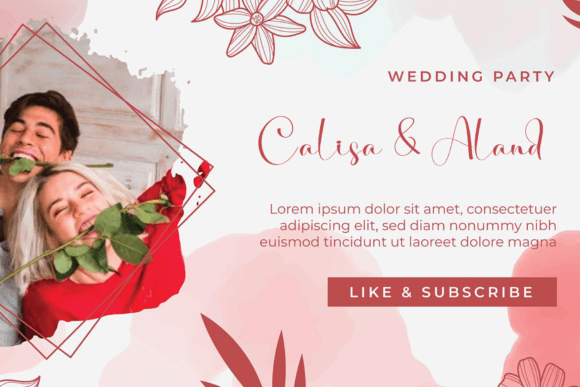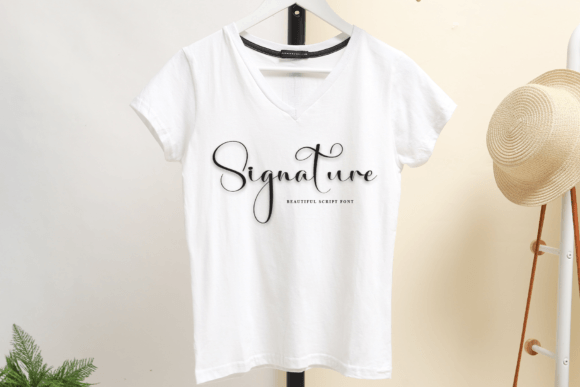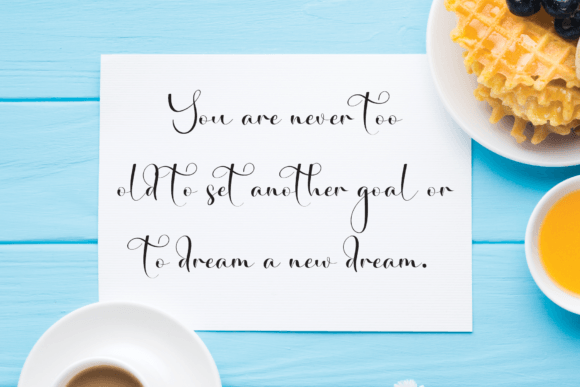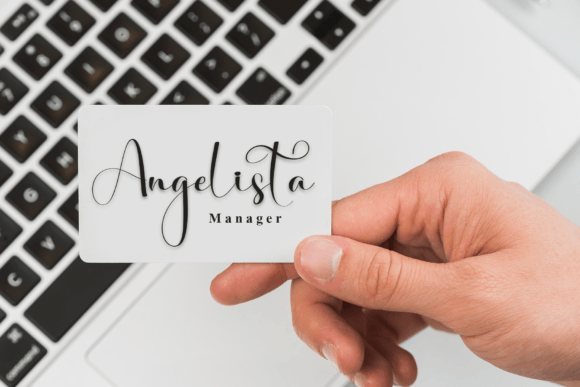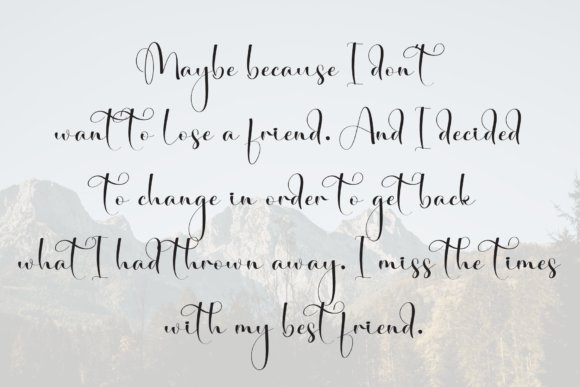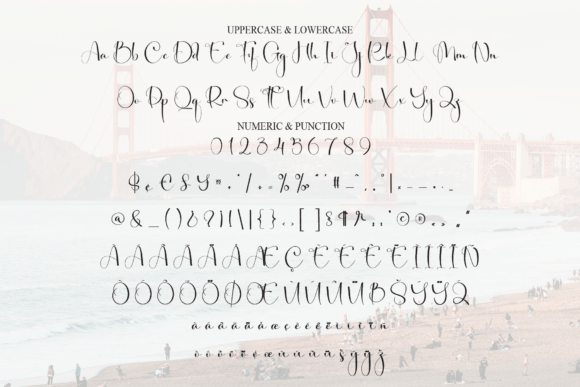
Introducing California Font: The Perfect Blend of Casual and Charming
Are you tired of using fonts that are too formal or rigid? Do you want to add a touch of warmth and authenticity to your designs? Look no further than California Font, a casual handwritten font that captures the essence of a relaxed and friendly vibe. With its natural, flowing strokes, California Font is ideal for personal projects, social media, and invitations, bringing an effortless, charming touch to any design.
The Characteristics of California Font
California Font is a unique and stylish font that boasts a range of characteristics that set it apart from other fonts. Its casual and handwritten style gives it a natural and effortless feel, making it perfect for designs that require a personal touch. The font’s flowing strokes and rounded edges add to its friendly and approachable vibe, making it ideal for use in a variety of design projects.
What Makes California Font So Special?
So, what makes California Font so special? For starters, its easygoing style adds warmth and authenticity to any design. Whether you’re working on a personal project, creating social media graphics, or designing invitations, California Font brings a charming touch that is sure to engage your audience. Additionally, the font’s casual style makes it perfect for use in a variety of design contexts, from digital to print.
Uses for California Font
California Font is a versatile font that can be used in a wide range of design projects. Here are just a few examples of how you can use California Font in your designs:
- Personal Projects: California Font is perfect for personal projects, such as scrapbooking, journaling, and crafting. Its casual style adds a touch of warmth and personality to any project.
- Social Media: Use California Font to create engaging social media graphics that are sure to capture the attention of your audience. Its friendly and approachable vibe makes it perfect for use in social media posts and graphics.
- Invitations: California Font is ideal for use in invitations, such as birthday party invitations, wedding invitations, and baby shower invitations. Its charming touch adds a personal and special touch to any invitation.
- Digital Designs: California Font can be used in a variety of digital designs, such as blog posts, website headers, and email newsletters. Its easygoing style makes it perfect for use in digital contexts.
Tips for Using California Font
Here are a few tips for using California Font in your designs:
- Pair it with Other Fonts: California Font pairs well with other fonts, such as sans-serif fonts and script fonts. Experiment with different font combinations to find the perfect look for your design.
- Use it in Large Sizes: California Font is perfect for use in large sizes, such as headings and titles. Its bold and playful style makes it perfect for grabbing the attention of your audience.
- Add Texture and Patterns: Add texture and patterns to your design to give it a more organic and natural feel. This will help to enhance the casual and handwritten style of California Font.
In conclusion, California Font is a unique and stylish font that is perfect for designers and crafters looking to add a touch of warmth and authenticity to their designs. Its casual and handwritten style makes it ideal for use in personal projects, social media, and invitations. With its easygoing style and charming touch, California Font is sure to engage your audience and add a special touch to any design.
- What type of font is California Font? California Font is a casual handwritten font.